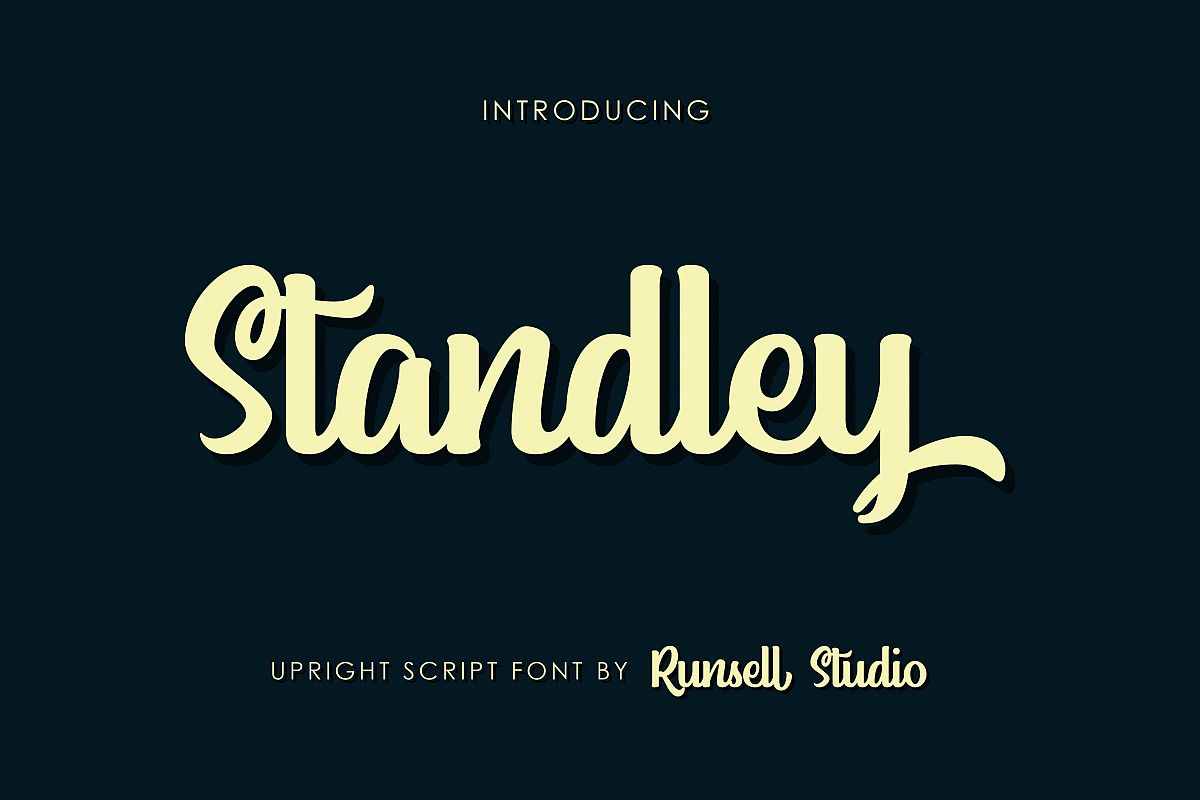
Standley upright style is great for logotype,
typography, poster, printed quotes, invitations, cards, product
packaging, headers, letterhead, apparel design, label, and etc.
Standley comes with uppercase, lowercase, numerals, punctuation, multilingual characters.
• Stylistic Alternate
• Swash Variant